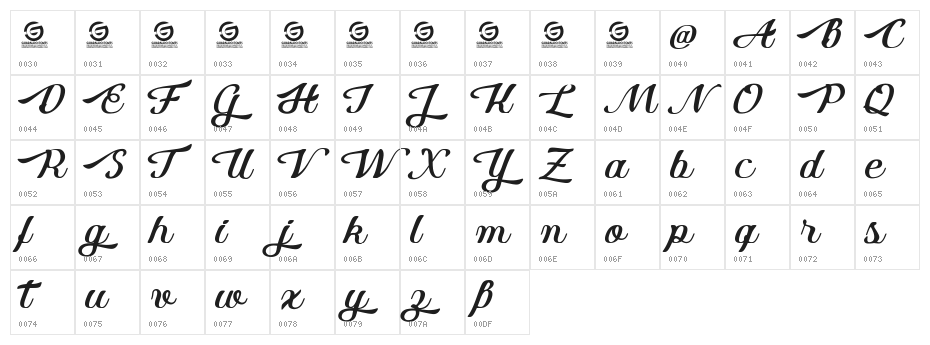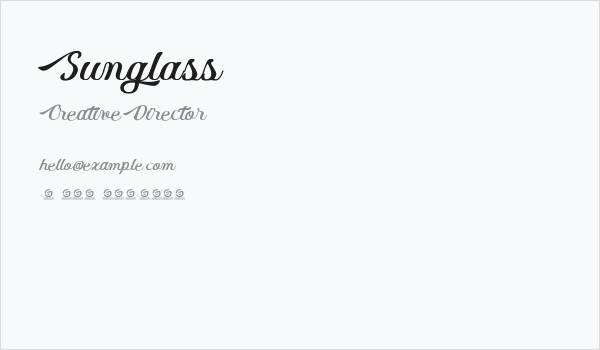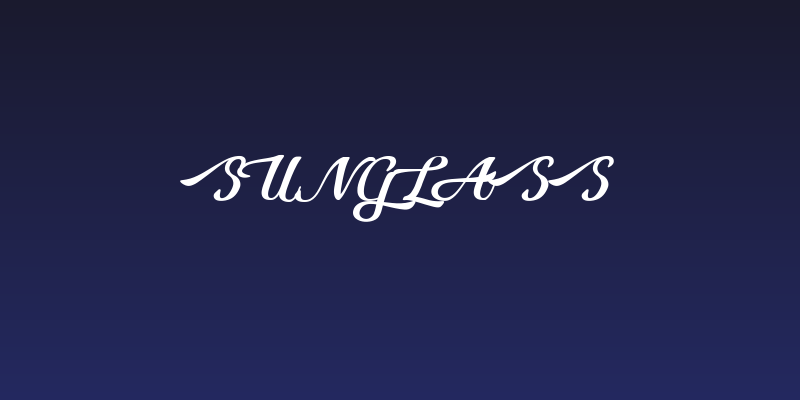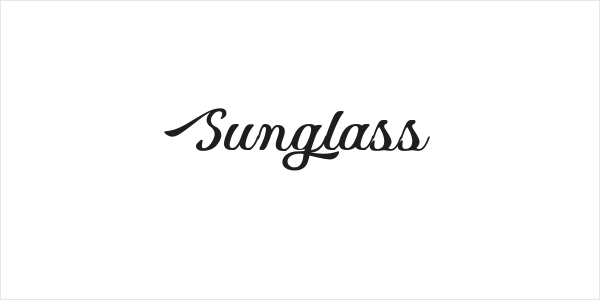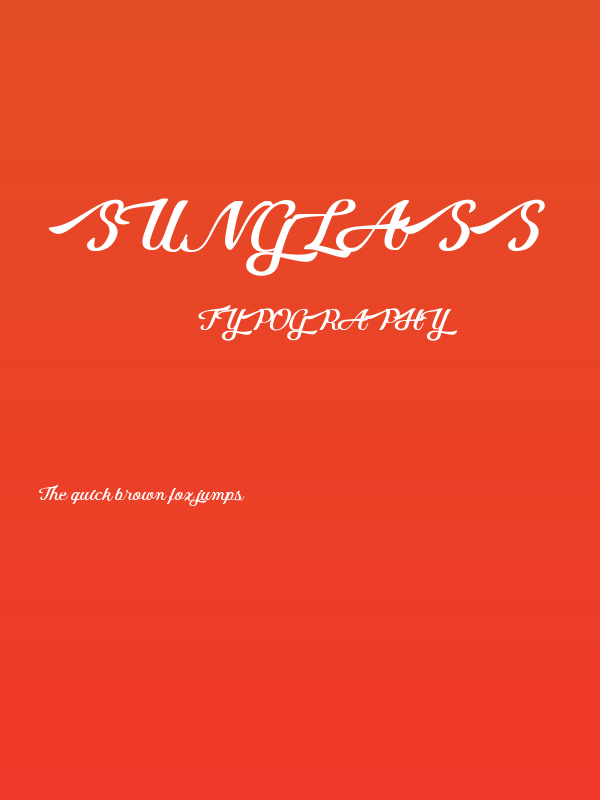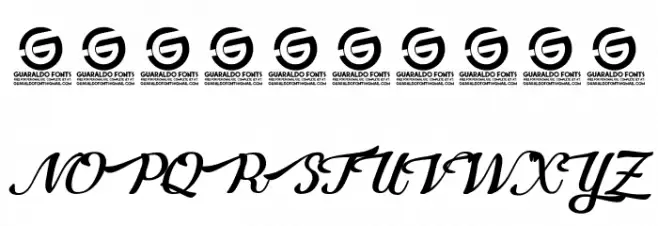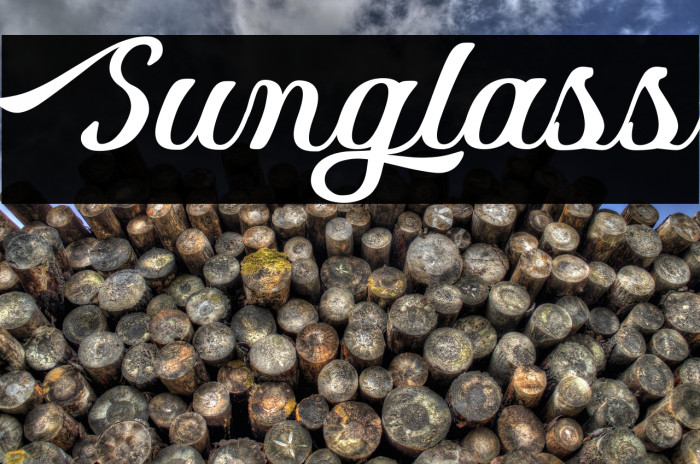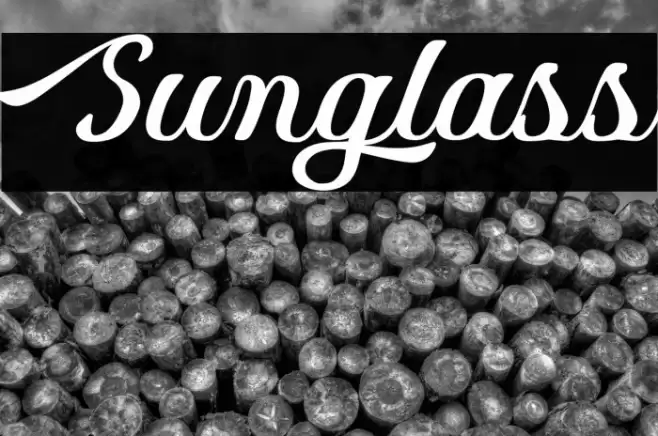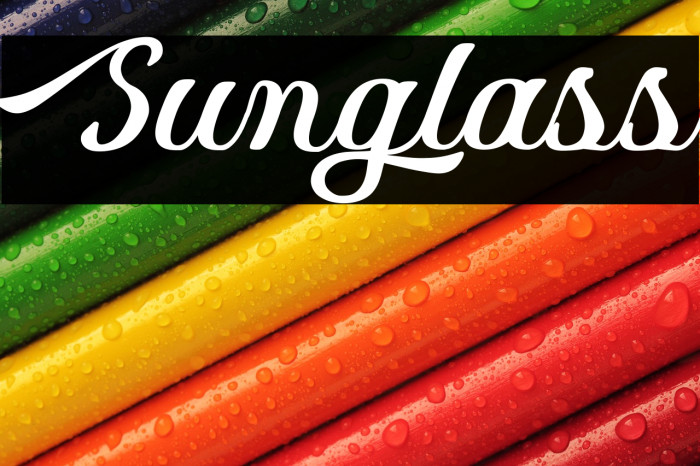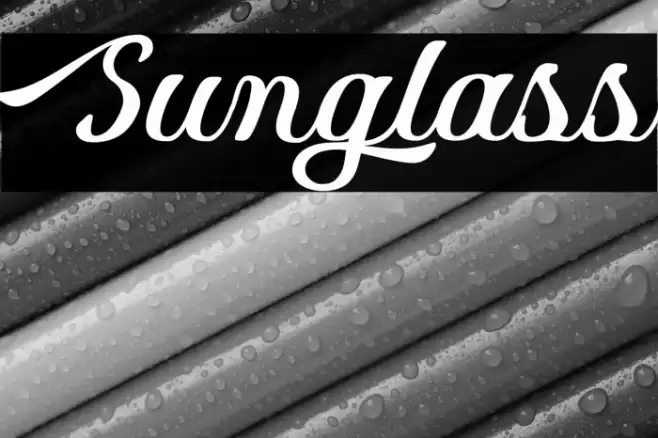
Sunglass Font
Sunglass Description
This font features a flowing, cursive style with elegant loops and swashes, giving it a sophisticated and artistic appearance. The characters are interconnected, creating a seamless and fluid look. The uppercase letters are bold and prominent, while the lowercase letters maintain a consistent flow with slightly less weight. The overall design is reminiscent of traditional calligraphy, making it suitable for projects that require a touch of elegance and refinement. The font's decorative nature is enhanced by its smooth curves and balanced proportions, making it ideal for creative and expressive designs.
| Proposed Projects | Wedding invitations, greeting cards, branding, and logo design. |